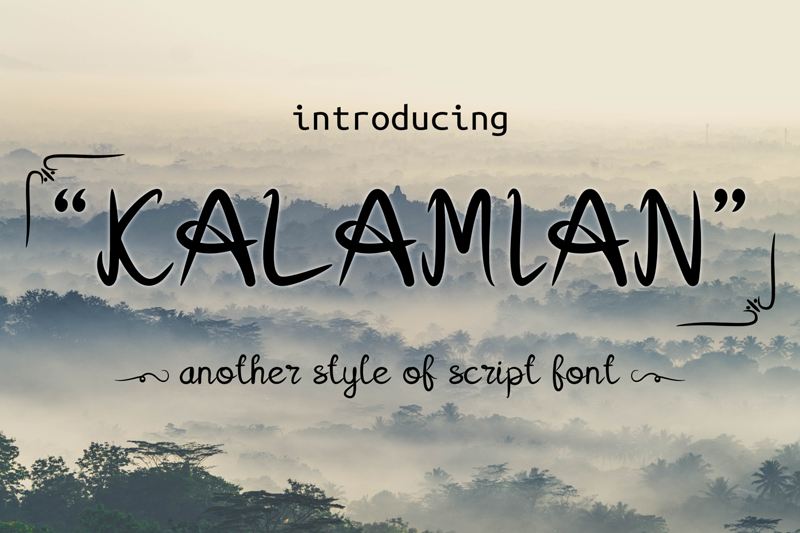
Font name: | Kalamian |
Author: | Onne Hermawan |
Note by Onne Hermawan | |
Kalamian is a uniquely styled script font. It has sharp but rounded ends, and can be used in a large variety of designs or used it into any long text. full version in here https://www.creativefabrica.com/product/kalamian/ thankyou. |